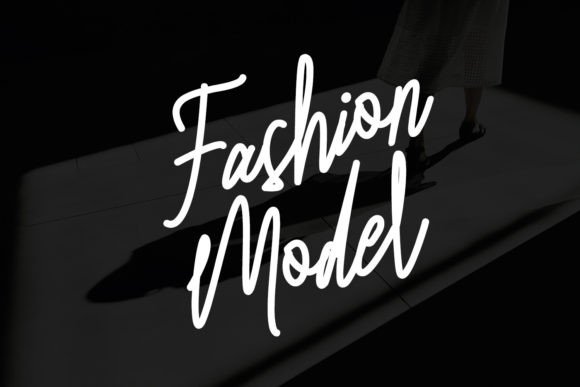
Bamsoed Font: Elevate Your Designs with an Authentic Brush-Handcrafted Feel
In the realm of digital design, fonts play a pivotal role in conveying the essence and personality of a brand or creative project. Among the myriad of font styles available, the Bamsoed Signature Script Font stands out for its unique, authentic brush-handcrafted feel. This comprehensive article delves into the world of Bamsoed Font, exploring its characteristics, uses, and the value it brings to designers and brands seeking to infuse their designs with a personal, handcrafted touch.
The Essence of Bamsoed Signature Script Font
The Bamsoed Signature Script Font is a meticulously crafted typeface that embodies the elegance and fluidity of handwriting. Its design is inspired by traditional brush scripts, offering a distinctive and sophisticated look that sets it apart from more conventional fonts. Each letter is designed to mimic the natural flow and variability of handwriting, creating a sense of authenticity and warmth.
This font is not just a collection of characters; it’s an expression of artistry and craftsmanship. The attention to detail in its creation ensures that it can be used across various design projects, from personal stationery to professional branding, without losing its charm or legibility.
Key Features of Bamsoed Font
- Authentic Brush-Handcrafted Feel: The font’s design captures the essence of traditional brush writing, offering a unique and personal touch to any design.
- High Versatility: Suitable for a wide range of applications, including signatures, stationery, logos, typography quotes, website headers, and branding.
- Elegant and Sophisticated: The fluidity and elegance of the script make it perfect for designs that require a touch of sophistication.
- Easy to Read: Despite its artistic nature, the font maintains a high level of legibility, making it practical for use in various contexts.
Applications of Bamsoed Signature Script Font
The versatility of the Bamsoed Signature Script Font makes it an invaluable asset for designers and brands. Here are some of the key areas where this font can make a significant impact:
- Signatures and Stationery: Add a personal touch to letters, notes, and official documents.
- Logos and Branding: Create memorable and distinctive brand identities that stand out.
- Typography Quotes: Bring quotes to life with a visually appealing and unique script.
- Website Headers: Enhance the aesthetic appeal of websites with elegant and eye-catching headers.
- Advertising and Marketing Materials: Elevate promotional materials with a sophisticated and artistic touch.
Benefits of Using Bamsoed Font
Choosing the Bamsoed Signature Script Font for your design projects comes with numerous benefits:
- Unique Aesthetic: Stand out in a crowded digital landscape with a distinctive and memorable design.
- Emotional Connection: The handcrafted feel of the font can create an emotional connection with your audience, making your brand or message more relatable.
- Professionalism: Despite its artistic nature, the font exudes professionalism, suitable for high-end brands and projects.
- Time-Saving: The versatility and legibility of the font mean you can use it across various projects, saving time and resources.
How to Use Bamsoed Signature Script Font Effectively
To maximize the impact of the Bamsoed Signature Script Font, consider the following tips:
- Pair with Complementary Fonts: Use the Bamsoed font in conjunction with simpler fonts to create visual hierarchy and contrast.
- Adjust Letter Spacing: Optimize letter spacing to enhance legibility and aesthetic appeal.
- Consider Size and Weight: Be mindful of the font size and weight to ensure it remains legible across different devices and platforms.
- Experiment with Colors: Play with different colors to find the perfect match that complements your brand or design theme.
The Bamsoed Signature Script Font is a powerful tool for designers and brands looking to infuse their projects with an authentic, brush-handcrafted feel. Its unique blend of elegance, sophistication, and versatility makes it suitable for a wide range of applications. By incorporating this font into your designs, you can create memorable, impactful, and aesthetically pleasing works that resonate with your audience.
Whether you’re looking to elevate your brand identity, add a personal touch to your stationery, or simply explore new creative avenues, the Bamsoed Font is an excellent choice. Embrace the beauty of handcrafted typography and discover the difference it can make in your designs.